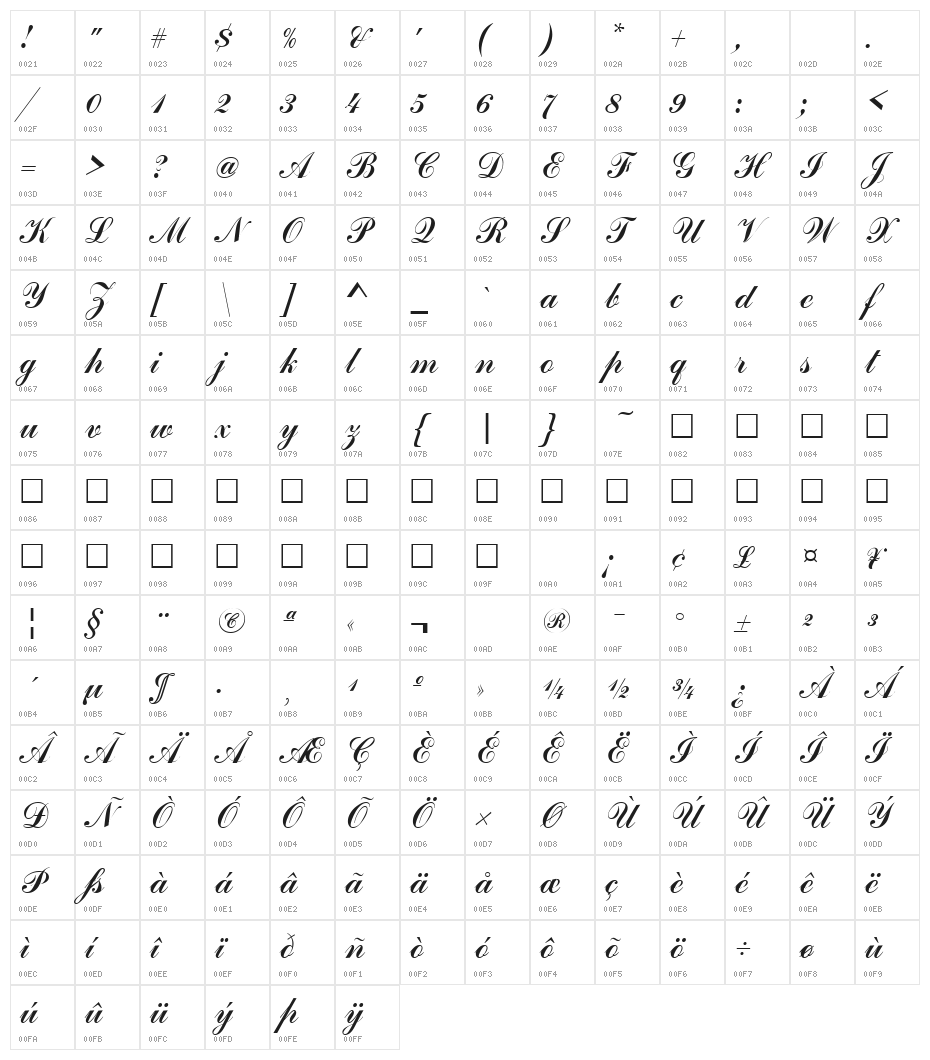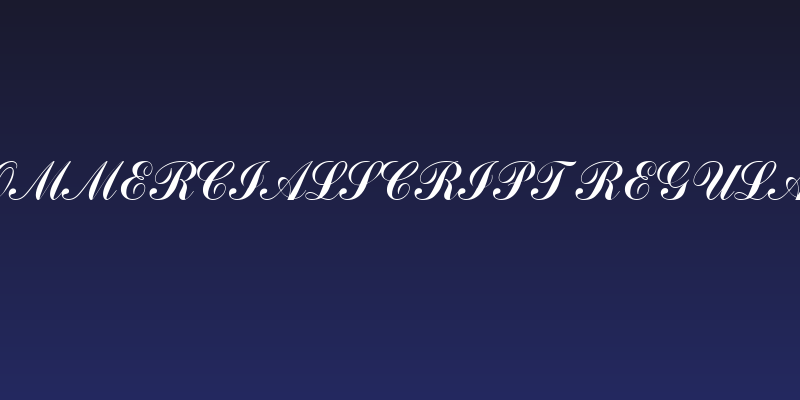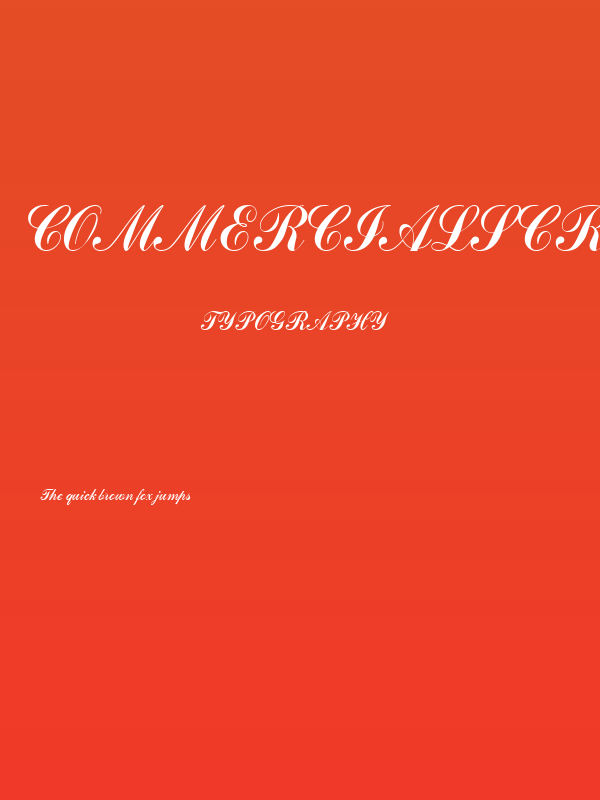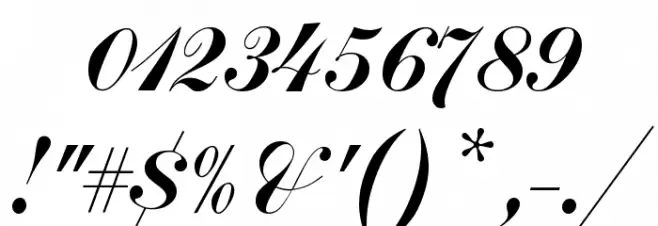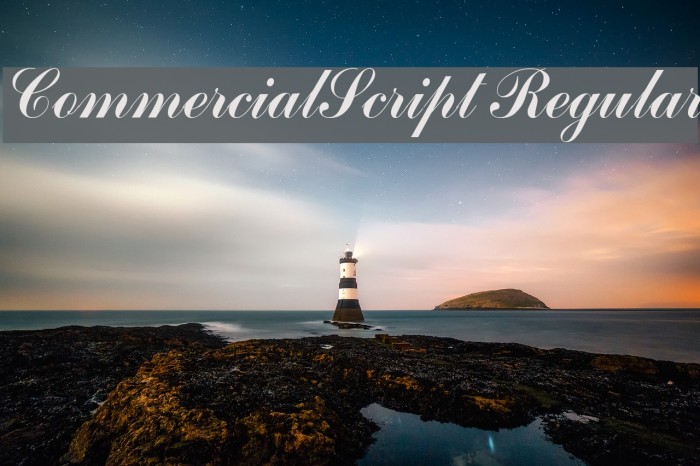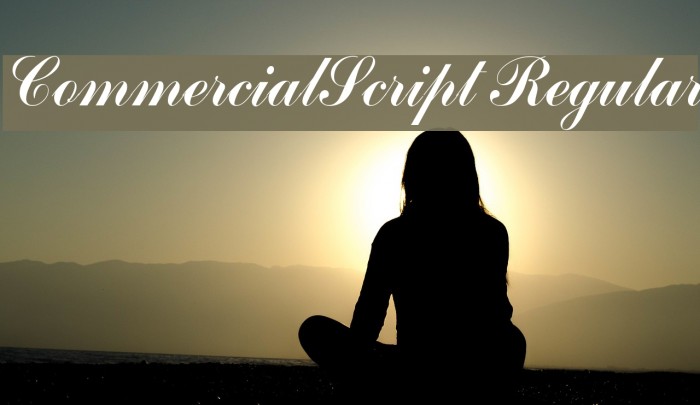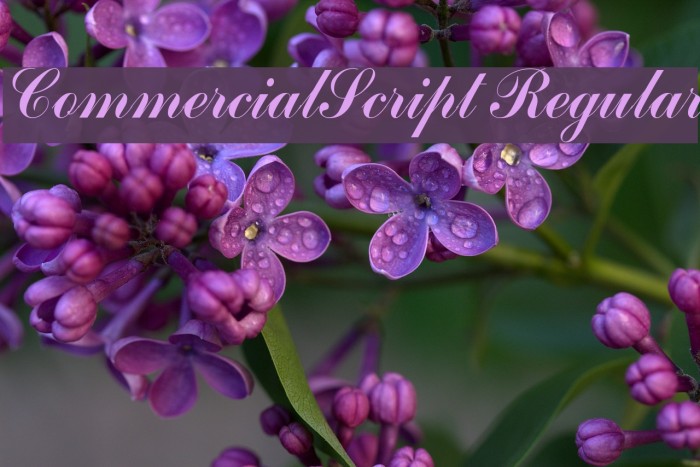
CommercialScript Regular Font
| Gesamtstil | Elegant, Formal, Luxurious |
| Anwendungsfall | Headlines, Invitations, Branding |
| Vorgeschlagene Projekte | Ideal for wedding invitations, luxury branding, formal event programs, and elegant packaging design. |